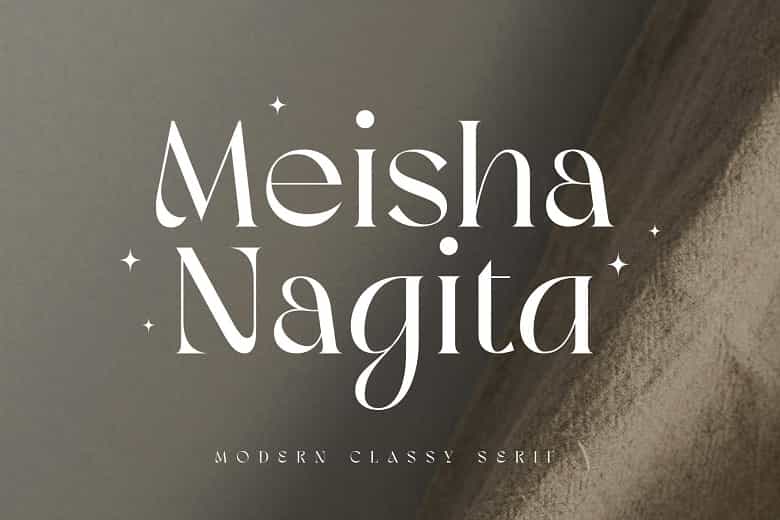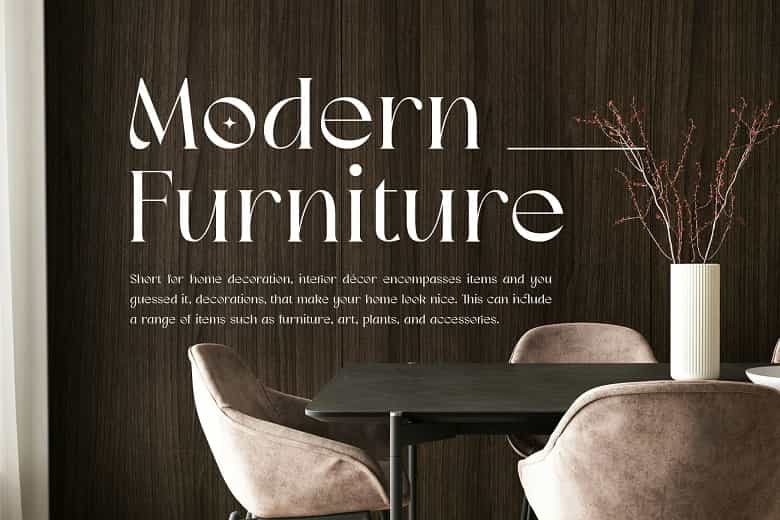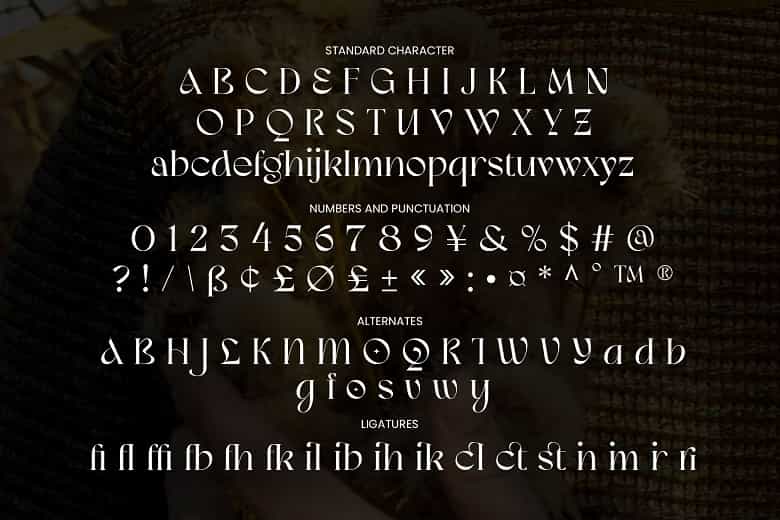
Meisha Nagita is a contemporary elegant serif font that is a perfect choice for any professional project. This font is a delight to the eyes with its sweet curves and nice shapes of the letters. Meisha Nagita is a modern classic style font and it is perfect for enhancing your design projects so it can be used in posters, flyers, social media, logos, branding, logotypes, editorials, magazines, and more.